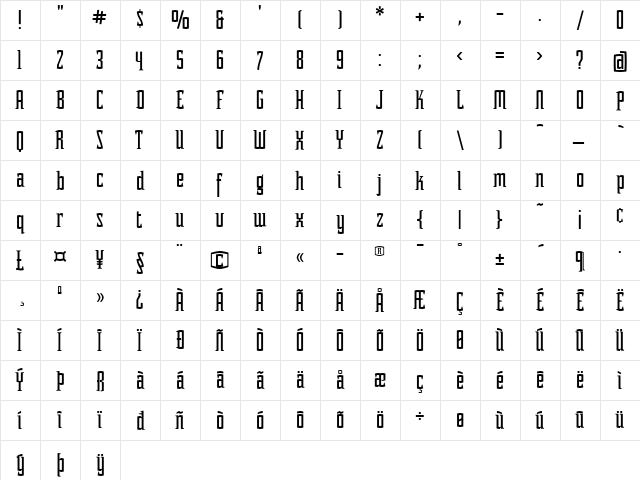
AITemerity Medium
Design Context for AITemerity Typeface
AITemerity offers clean, dependable letterforms without strong stylistic allegiance, making it a practical choice for designers who need flexibility.
Pro Tip: Pair AITemerity with a font of contrasting weight or personality to build a more expressive typographic hierarchy.